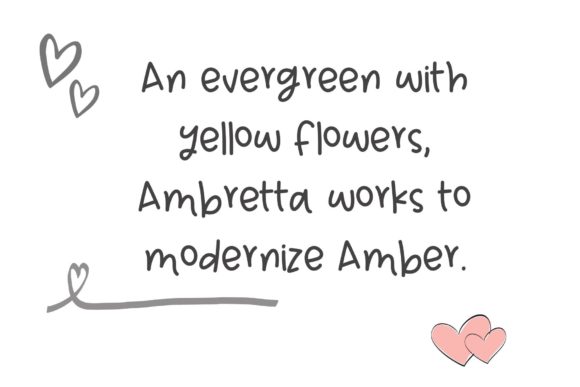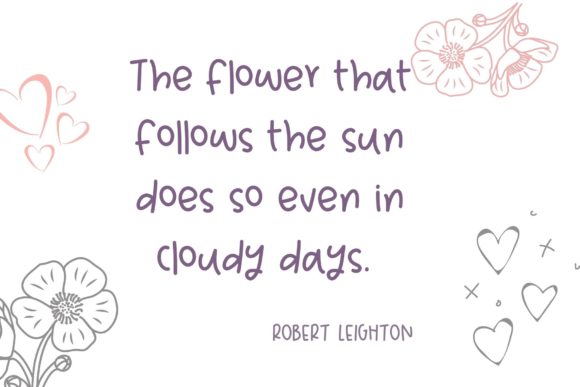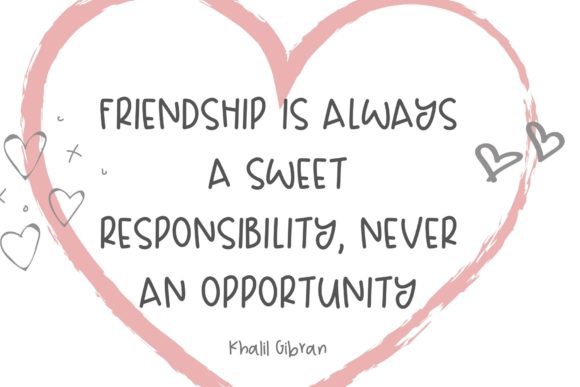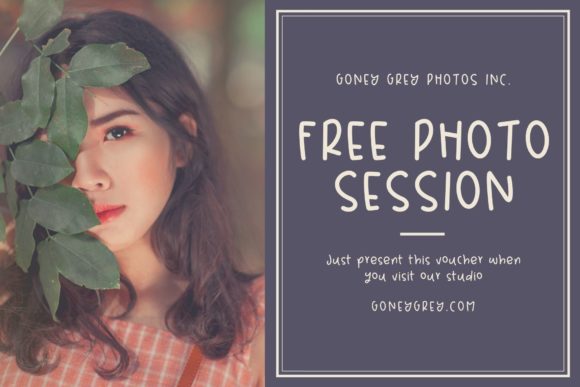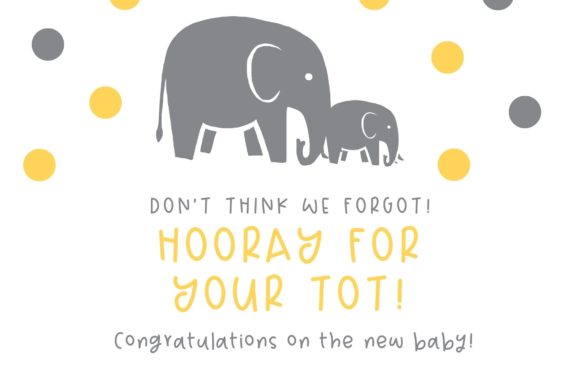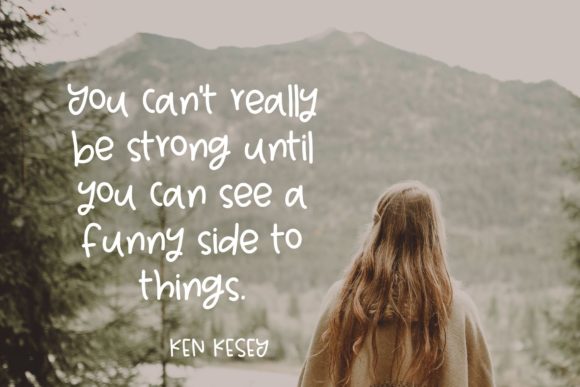
Introduction to Fresh Ambretta Font
Fresh Ambretta is a fun and quirky handwritten font.
Its friendly feel makes this font versatile, fitting a wide range of design projects, be it for quotes, headings, blogs, logos, invitations Get creative with its childlike playfulness, and use it to brighten up any kids and school project.